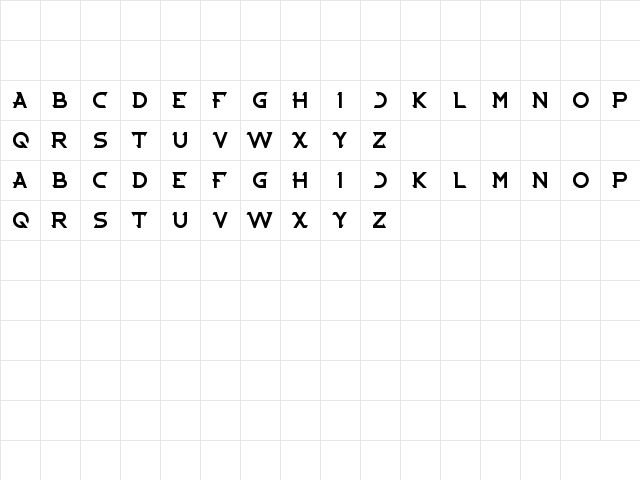
CYBERTOOTH Regular
Design Context for CYBERTOOTH Typeface
CYBERTOOTH channels digital-age aesthetics through its sharp, structured letterforms — ideal for brands that want to signal innovation.
Pro Tip: Use CYBERTOOTH in combination with a neutral sans for body text. Let it define the brand voice in headlines while keeping reading comfortable elsewhere.